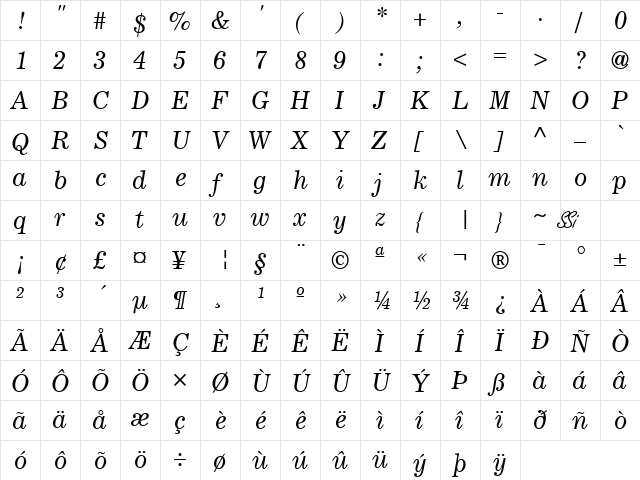
Lockup SSi Italic
Design Context for Lockup SSi Typeface
Lockup SSi offers clean, dependable letterforms without strong stylistic allegiance, making it a practical choice for designers who need flexibility. The dynamic lean of this cut emphasises speed and emphasis in any layout.
Pro Tip: Try Lockup SSi for annotation and caption copy alongside an upright companion — the contrast in angle creates a dynamic but ordered typographic system.